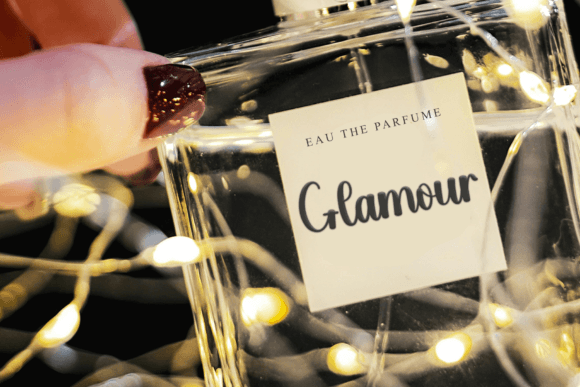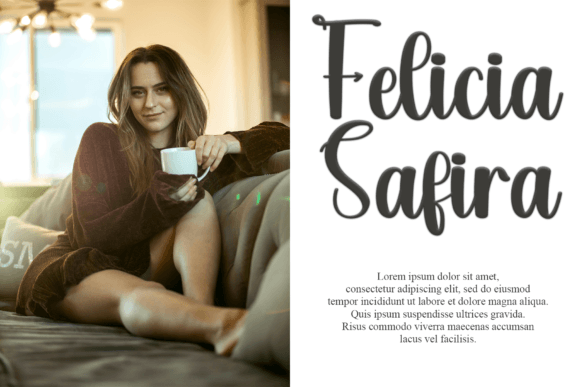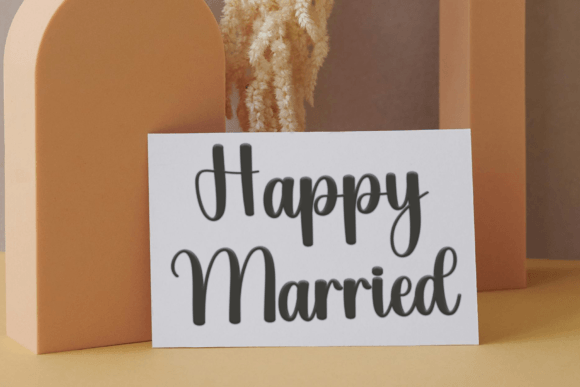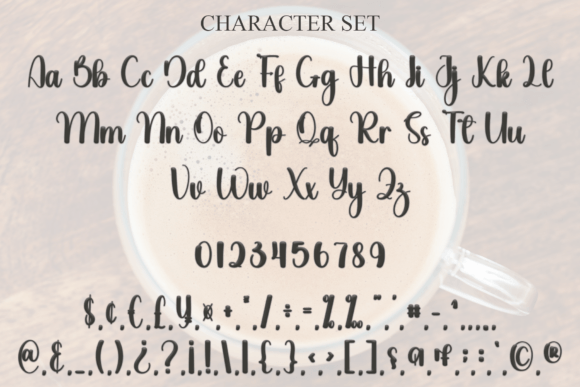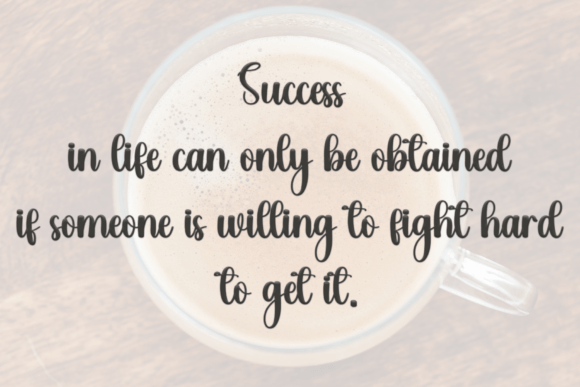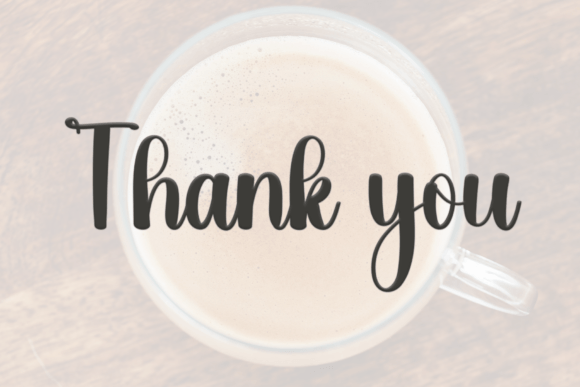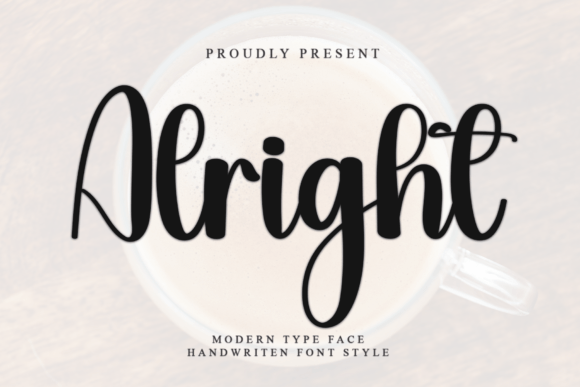
The Joy of Alright Font: A Designer’s New Best Friend
I still remember the time I was working on a children’s party invitation project, and I just couldn’t find the right font to match the playful theme. The client wanted something cheerful, fun, and engaging, but everything I tried seemed either too boring or too over-the-top. That’s when I stumbled upon the Alright Font, and let me tell you, it was love at first sight! ✨
An Honest Review of Alright Font
- ✨ The Alright Font is ridiculously fun and quirky, making it perfect for children’s themed designs, party invitations, and any project that needs a cheerful touch.
- ✅ It’s PUA encoded, which means you can easily access all the amazing glyphs and ligatures without any hassle.
- 🎉 The font is highly versatile and works beautifully with bright colors, making it ideal for designs that need a pop of fun.
While the Alright Font is amazing, there are a few things to keep in mind: ⚠️
- 🤔 The font might not be the best choice for very formal or professional projects, as it’s quite playful and attention-grabbing.
- ⚠️ Some of the glyphs and ligatures might not work perfectly in older software or browsers, so it’s essential to test your design before finalizing it.
The Backstory of Alright Font
The Alright Font was designed with one goal in mind: to bring a smile to people’s faces. The creator, a passionate typographer, wanted to craft a font that would make designs more approachable, friendly, and fun. Inspired by children’s handwriting and playful street art, the Alright Font was born.
| Font Name | Alright Font |
| Author | Black line |
Q: Is the Alright Font suitable for body text or long paragraphs?
A: While the Alright Font is amazing for titles, headings, and short text, it might not be the best choice for body text or long paragraphs. Its playful nature might make it harder to read in large blocks of text.